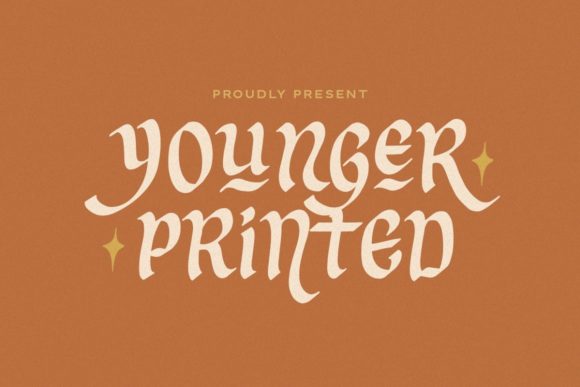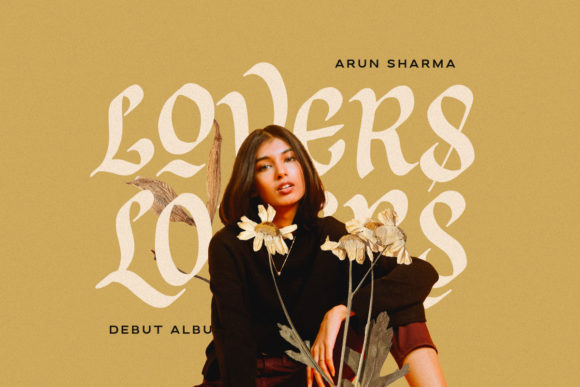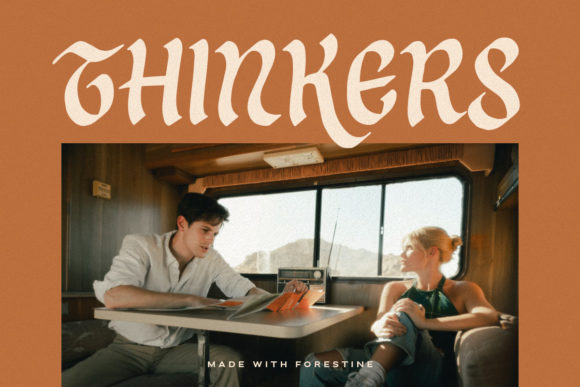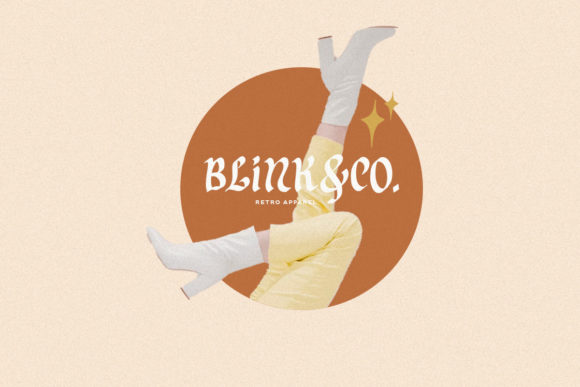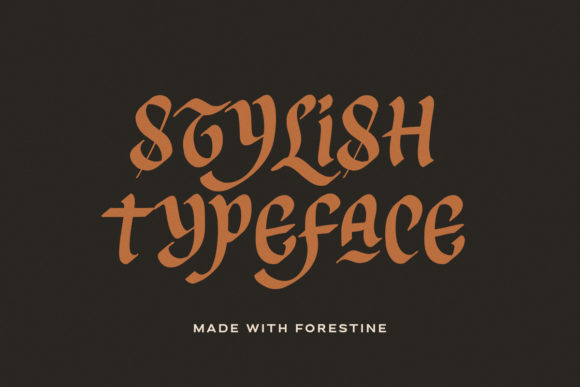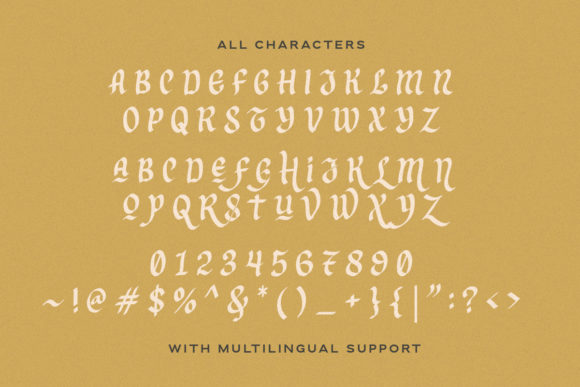
Introducing Forestine Font: Elevate Your Designs with a Touch of Modern Elegance
Are you on the hunt for a font that combines modern sophistication with a hint of rugged charm? Look no further than Forestine Font, a stylish blackletter font that’s poised to revolutionize your design projects. With its unique blend of refinement and earthiness, Forestine is the perfect choice for designers and crafters seeking to add a touch of elegance to their work.
The Essence of Forestine Font
Forestine Font is a modern and stylish blackletter font that exudes a sense of chic sophistication. Its sleek, refined lines and curves evoke a sense of luxury and poise, making it an ideal choice for high-end design projects. Yet, despite its refined appearance, Forestine also boasts a distinctly personalized and rough feel, which adds a down-to-earth, cool vibe to any design.
Key Features of Forestine Font
- Modern Blackletter Style: Forestine’s sleek, contemporary take on traditional blackletter fonts sets it apart from more ornate, vintage-inspired designs.
- Personalized and Rough Feel: The font’s subtle imperfections and rough texture give it a unique, hand-crafted feel that adds warmth and character to any design.
- Versatility: Forestine Font is suitable for a wide range of design applications, from elegant logos and branding materials to stylish posters, flyers, and digital content.
- Ease of Use: With its clear, legible letterforms and straightforward design, Forestine Font is easy to read and work with, making it perfect for designers of all skill levels.
Design Applications for Forestine Font
Forestine Font’s versatility and stylish appearance make it an excellent choice for a variety of design projects. Here are just a few ideas to get you started:
- Logo Design: Create a lasting impression with a custom logo that showcases Forestine’s elegant, modern lines and distinctive character.
- Branding Materials: Use Forestine Font to add a touch of sophistication to your business cards, letterheads, and other marketing materials.
- Posters and Flyers: Make a bold statement with eye-catching posters and flyers that showcase Forestine’s striking appearance.
- Digital Content: Elevate your blog, social media, or website with Forestine Font’s stylish, modern aesthetic.
Why Choose Forestine Font?
- Unique Style: Forestine’s blend of modern elegance and rough, personalized texture sets it apart from more generic fonts.
- High-Quality Design: Crafted with attention to detail and a focus on legibility, Forestine Font is a high-quality design that will elevate your projects.